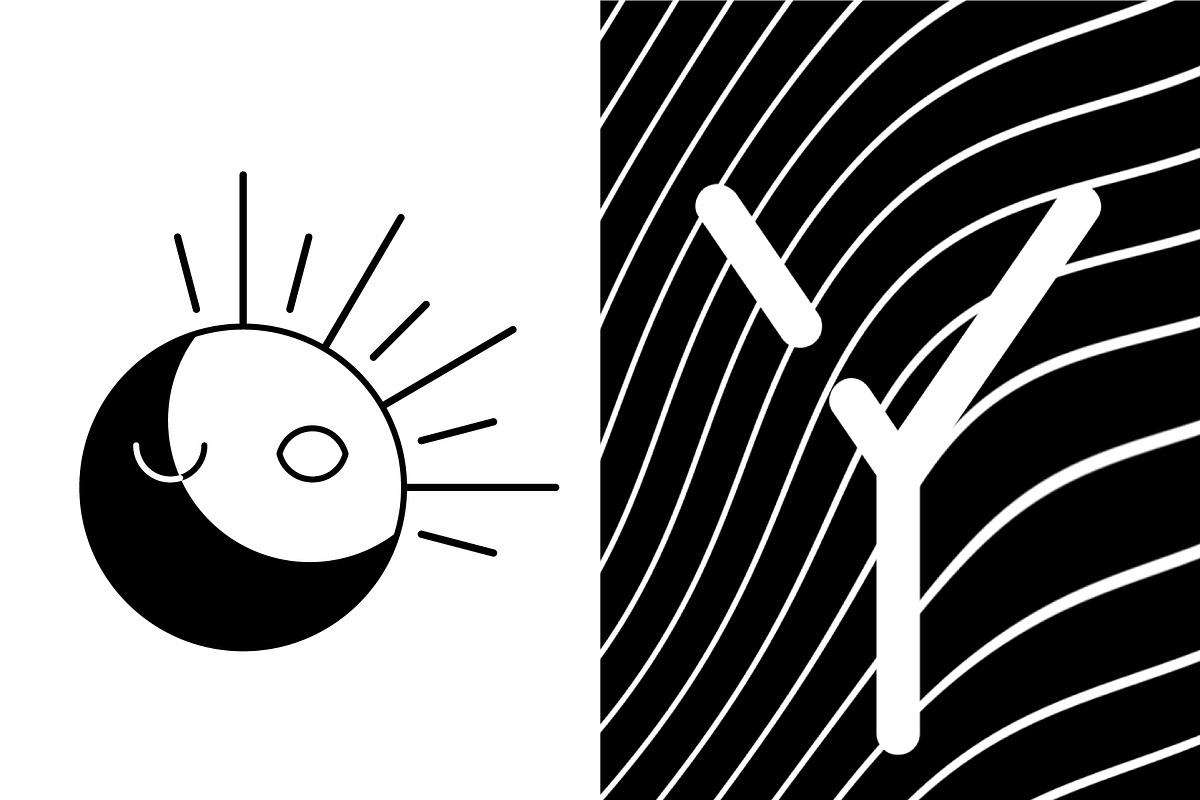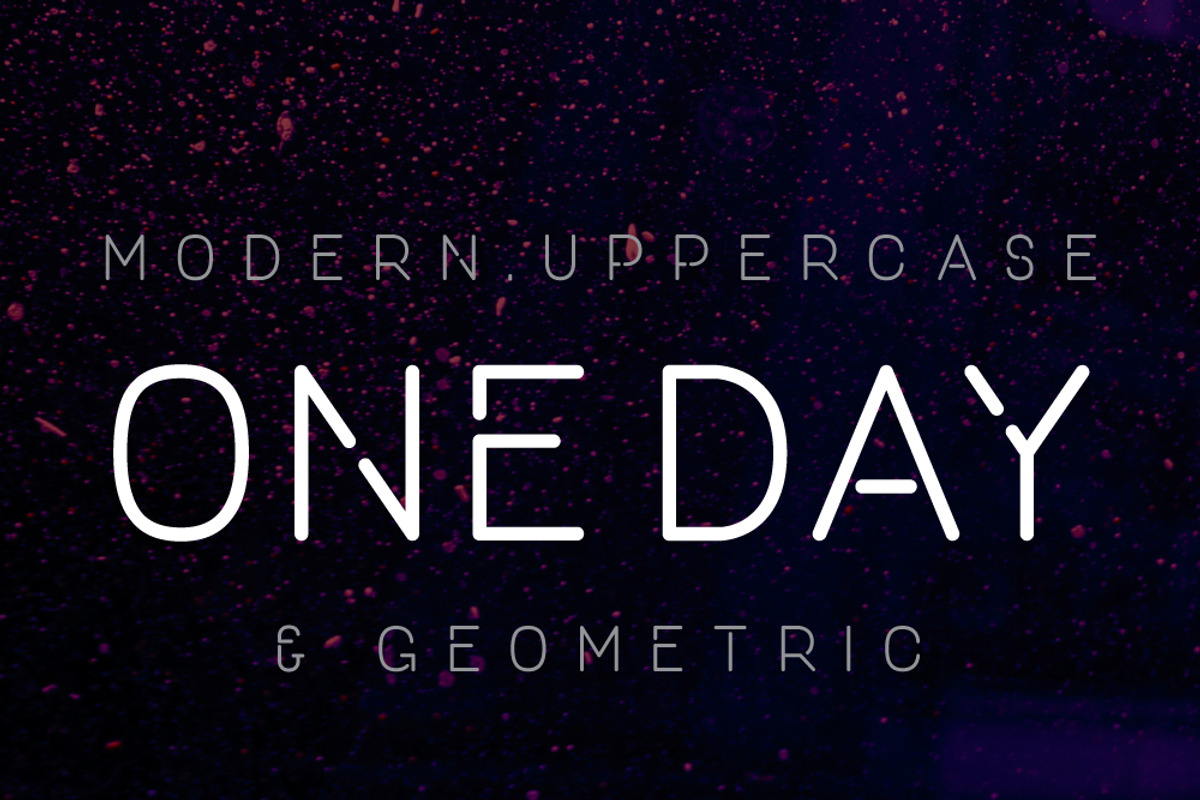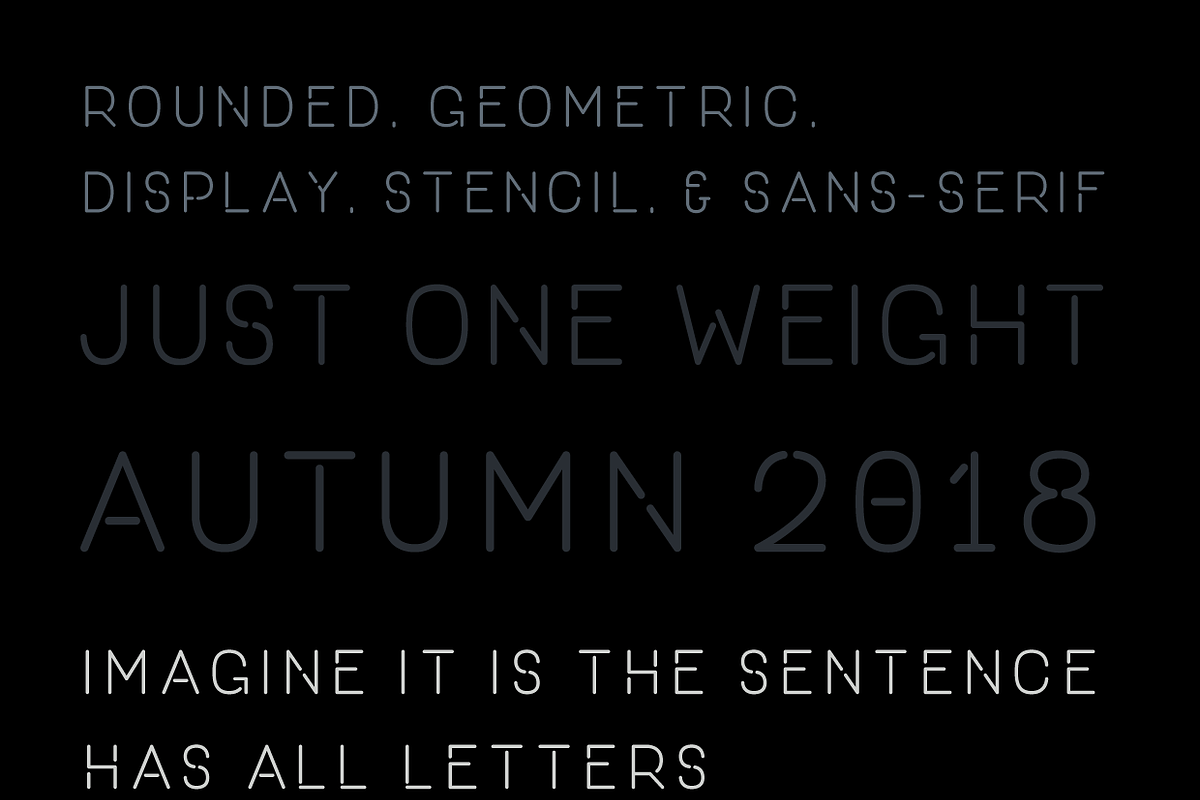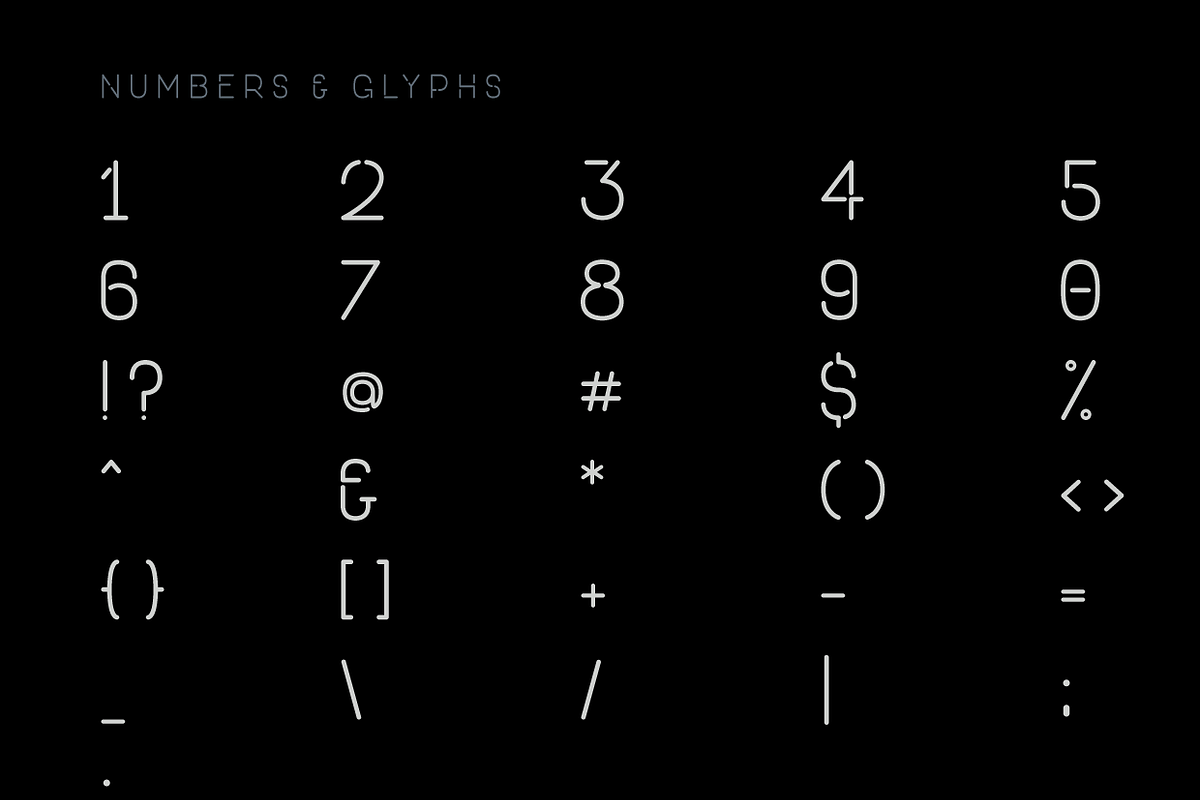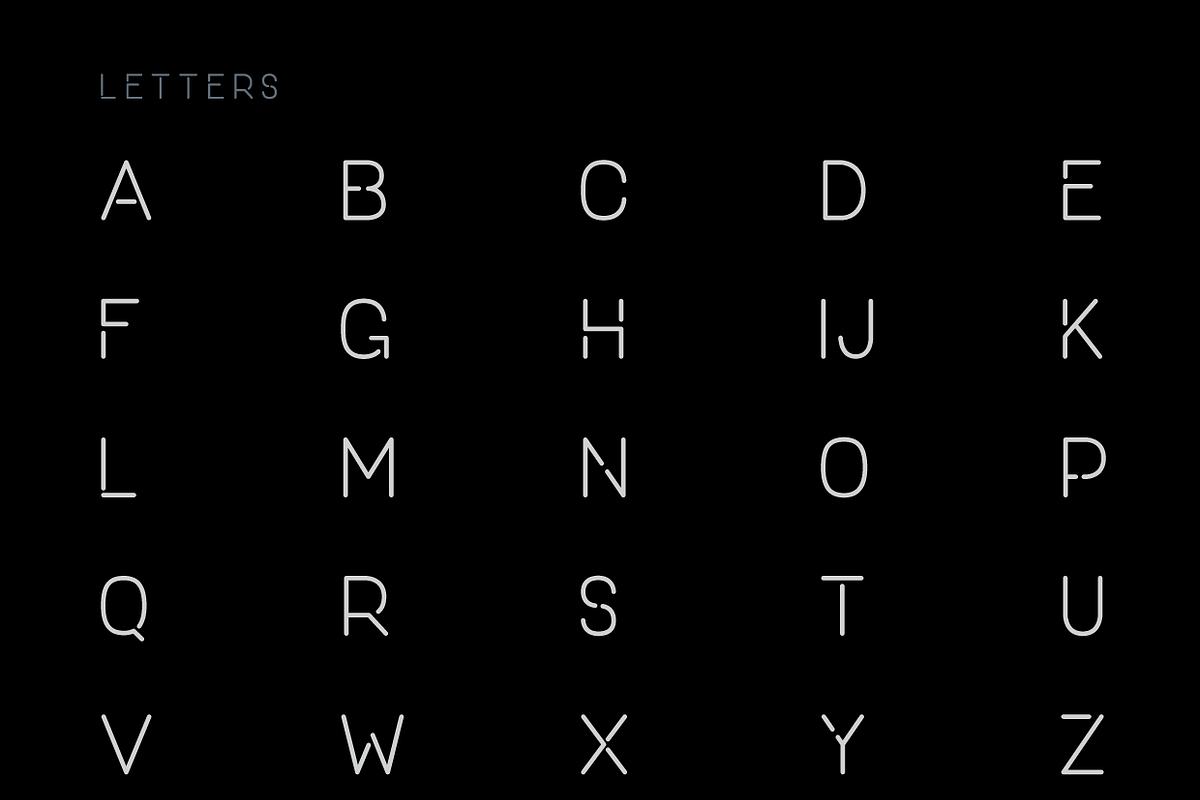
ONE DAY Stencil Display
ONE DAY is a clean, modern geometric display typeface designed to bring a bold and contemporary aesthetic to branding, editorial, and digital design projects. Featuring a minimalist construction, sleek stencil-inspired details, and carefully balanced letterforms, this uppercase font delivers a strong visual presence while maintaining exceptional readability.
Built around geometric shapes and modern design principles, **ONE DAY **is ideal for logos, branding systems, posters, headlines, packaging, social media graphics, advertising campaigns, web design, and creative typography projects.
Its distinctive character combines simplicity, precision, and versatility, making it a valuable addition to any designer's font library.
Brand Identity
Editorial Design
Posters & Headlines
Website Headers
Creative Typography
Advertising & Marketing Materials
Modern Visual Branding
Uppercase Character Set
Geometric Letterforms
Modern Display Typeface
Minimalist Design
Stencil-Inspired Details
Clean & Contemporary Style
High Impact Headlines